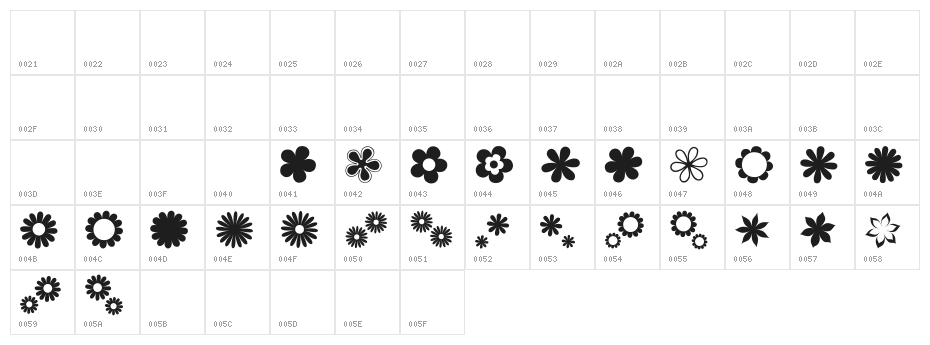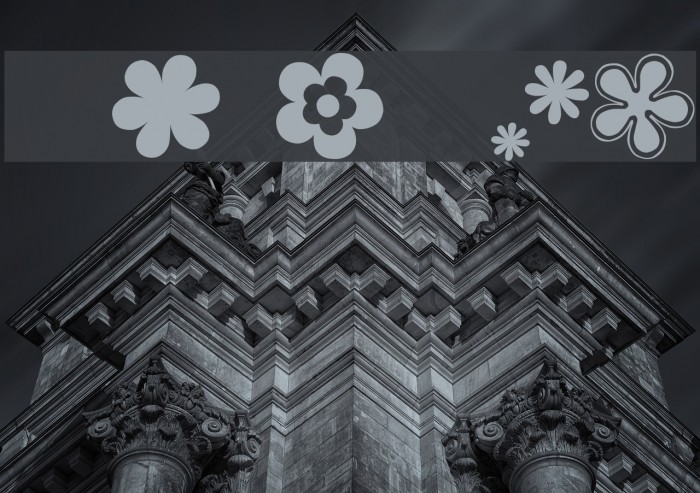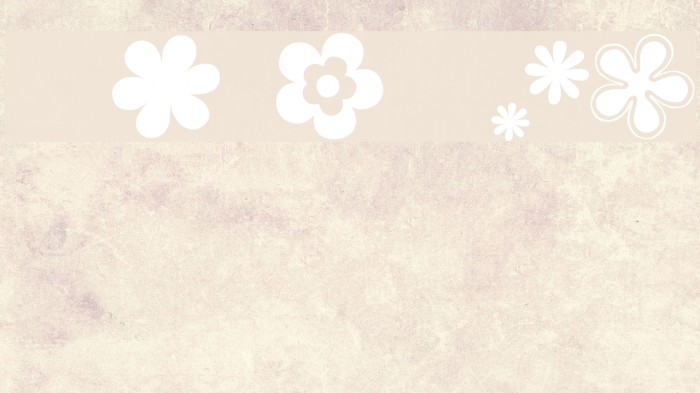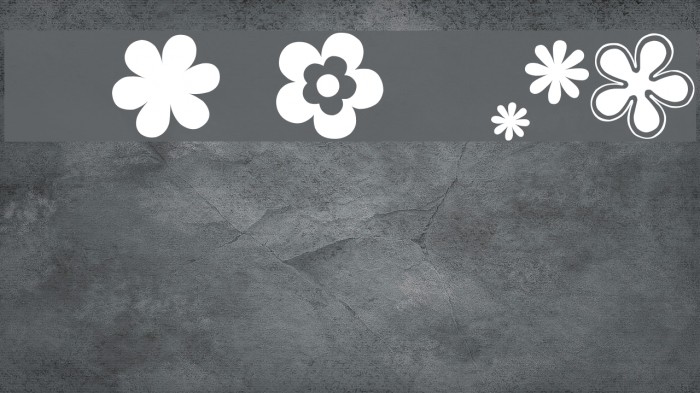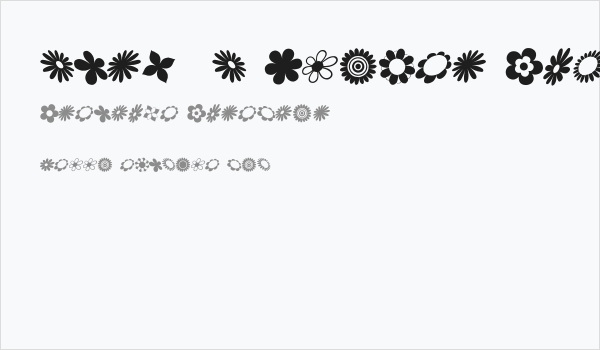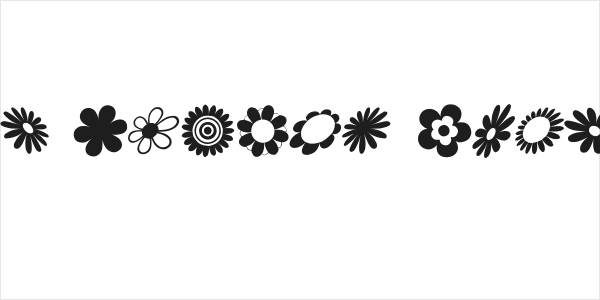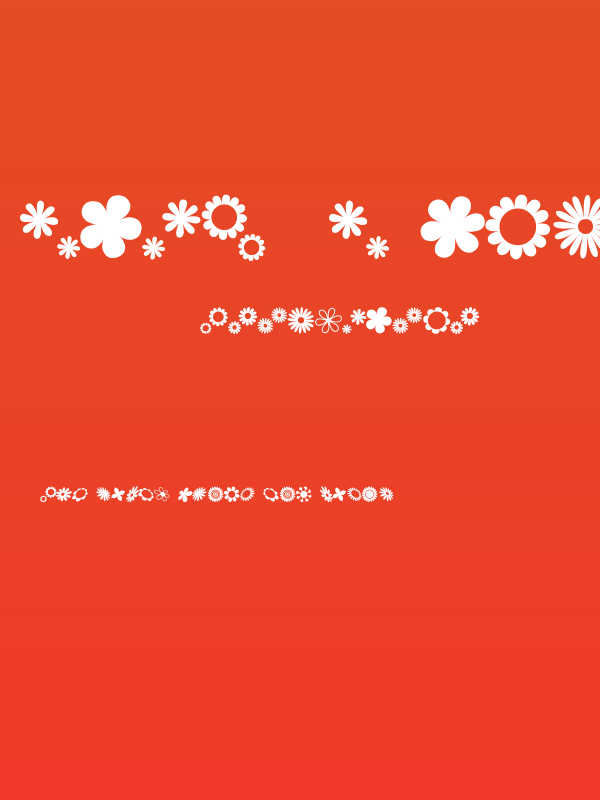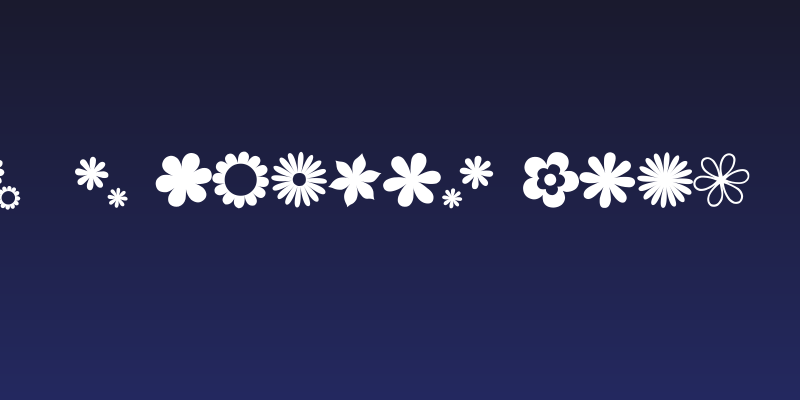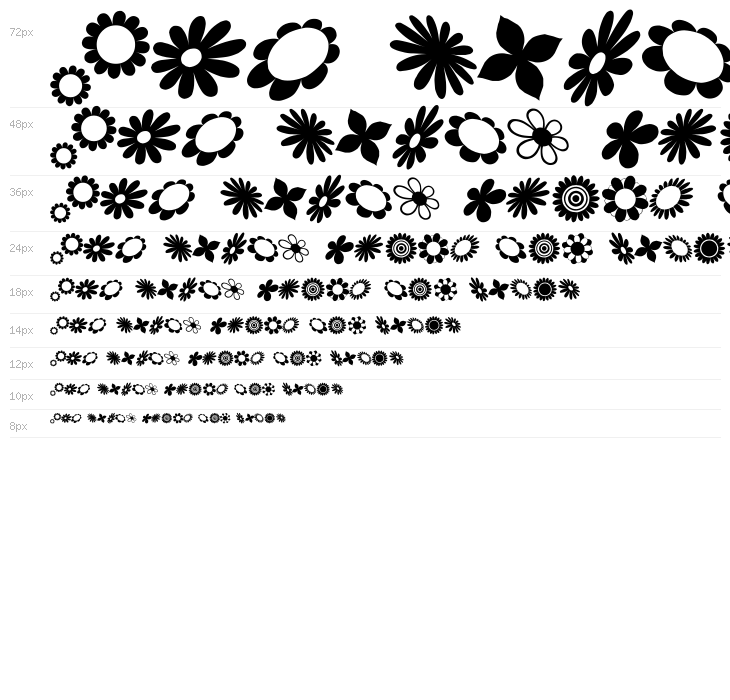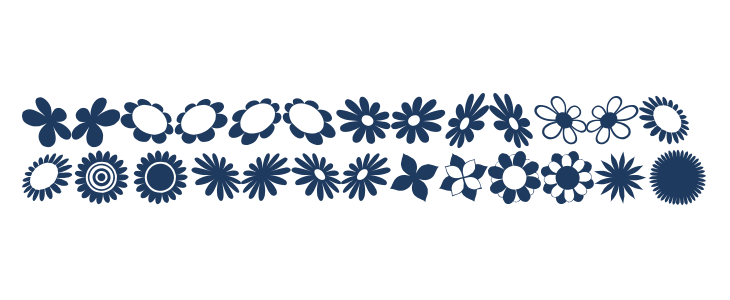
saru's Flower Ding [sRB] Font
saru's Flower Ding [sRB] Description
A decorative dingbat set featuring a variety of stylized flower shapes in solid black and outlined forms, with diverse petal counts and arrangements, suitable for ornamental and illustrative purposes.
| Use Case | Ornaments, Borders, Decorative elements |
| Proposed Projects | Greeting cards, invitations, scrapbooking, decorative borders, digital stickers, and crafts. |